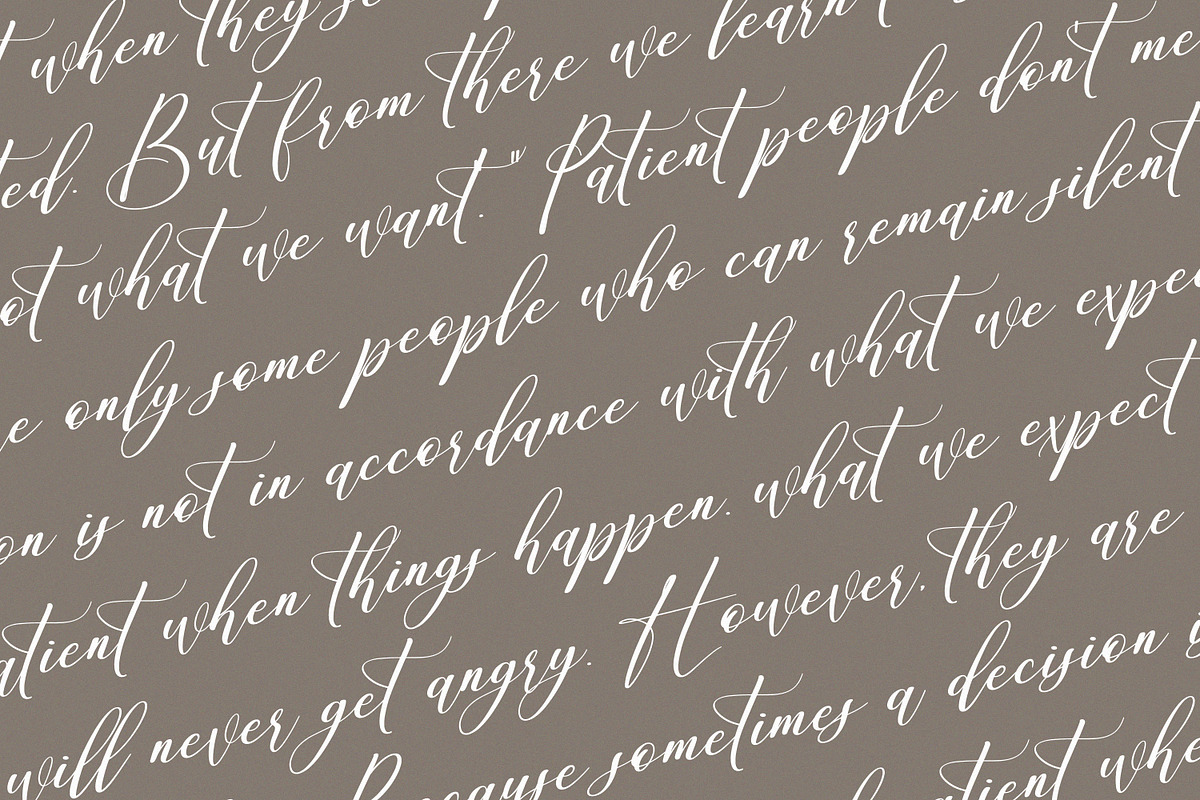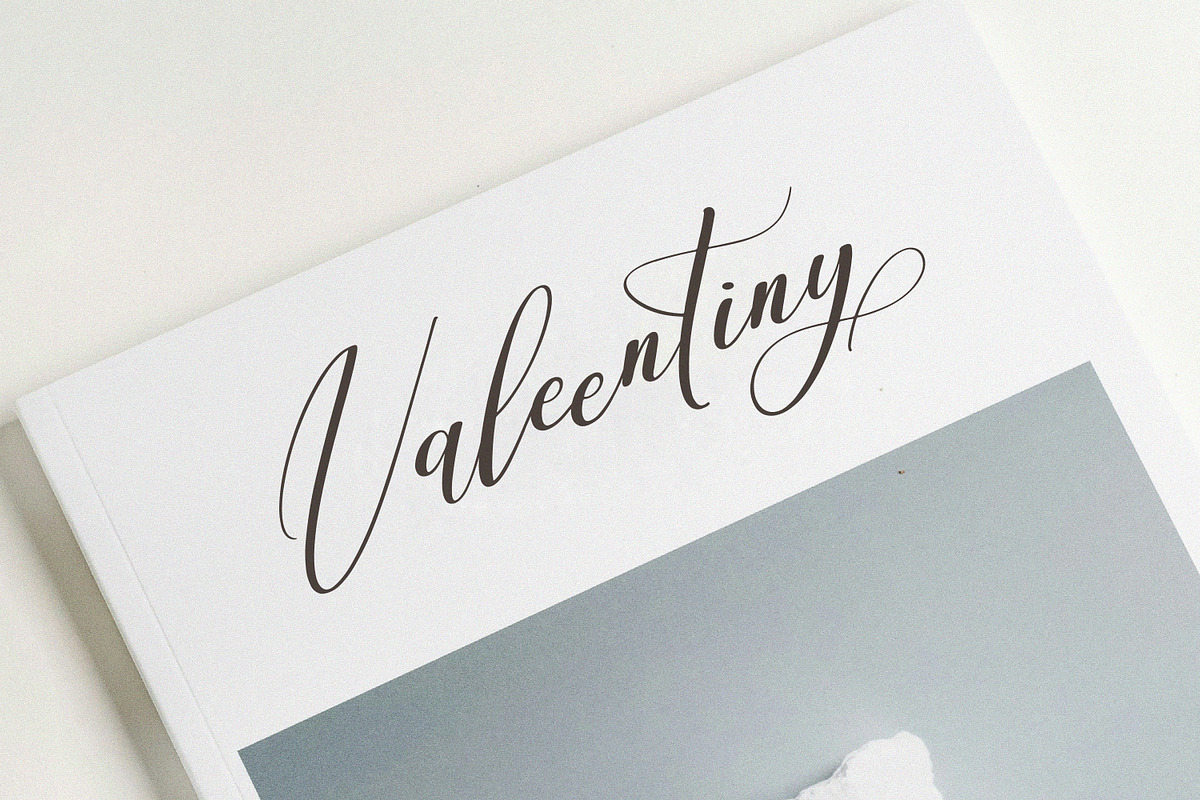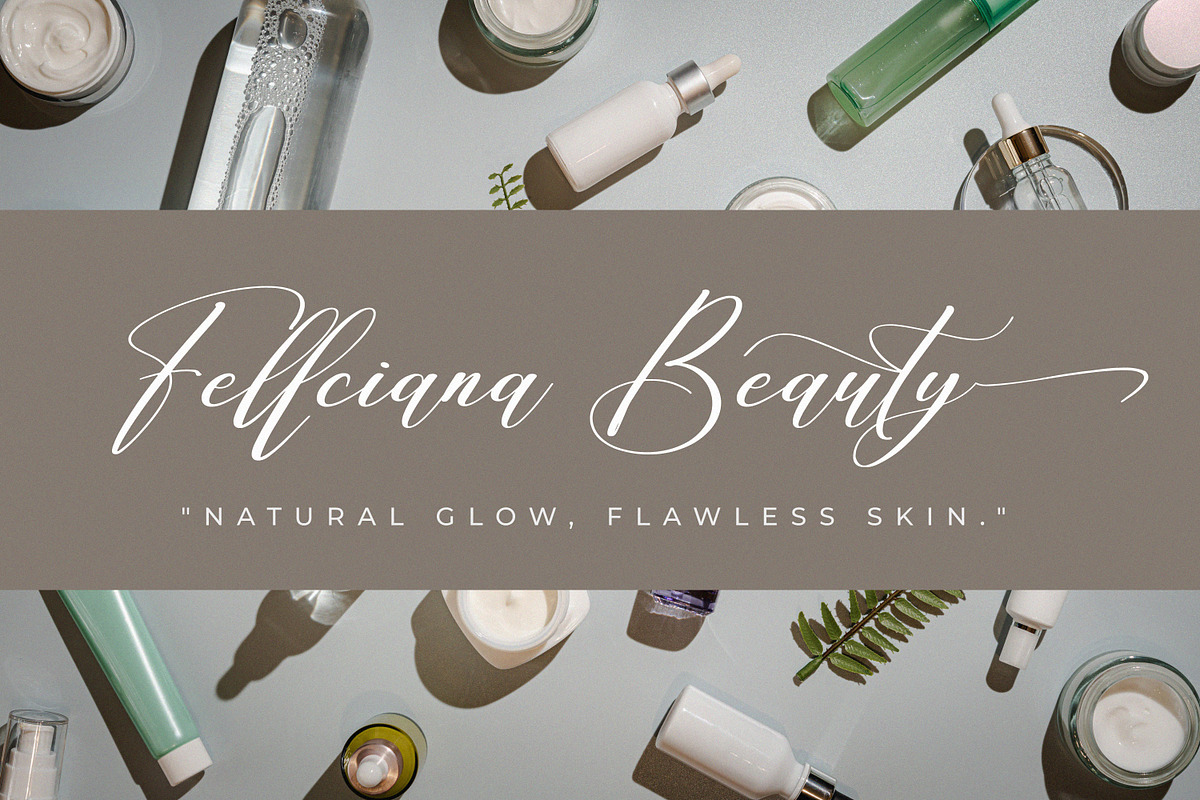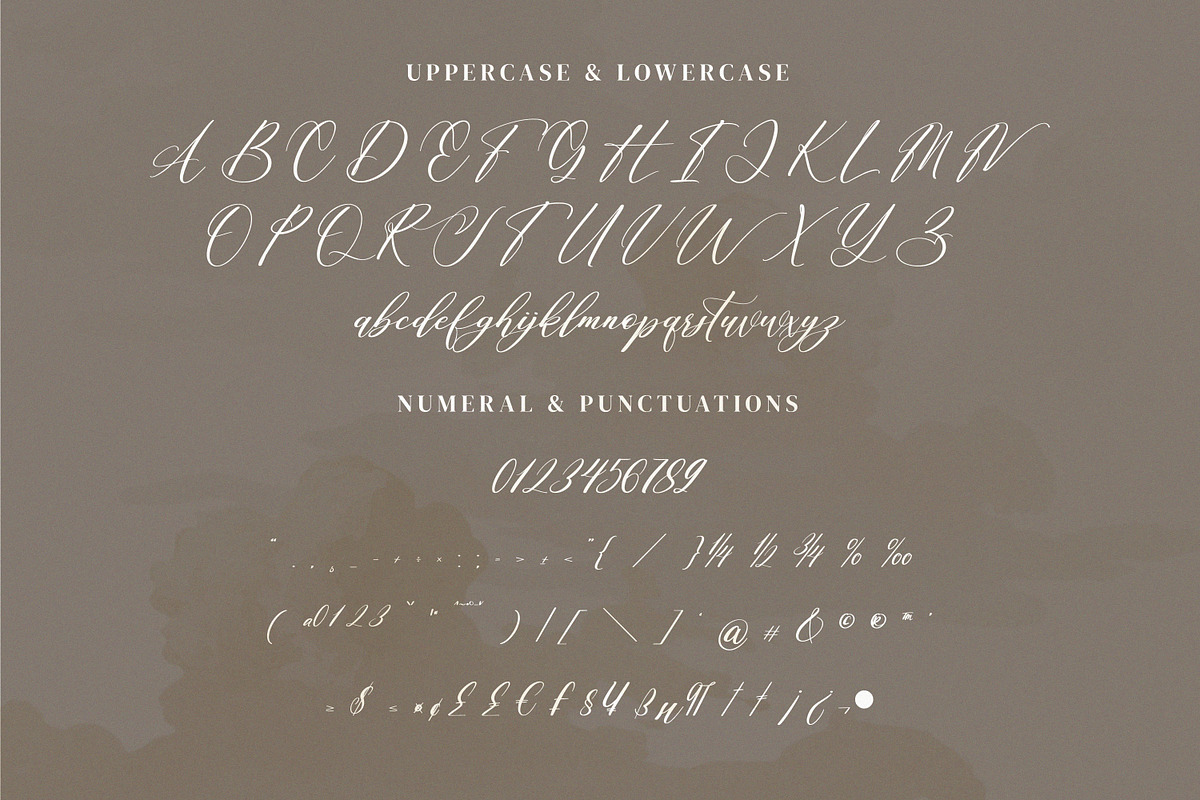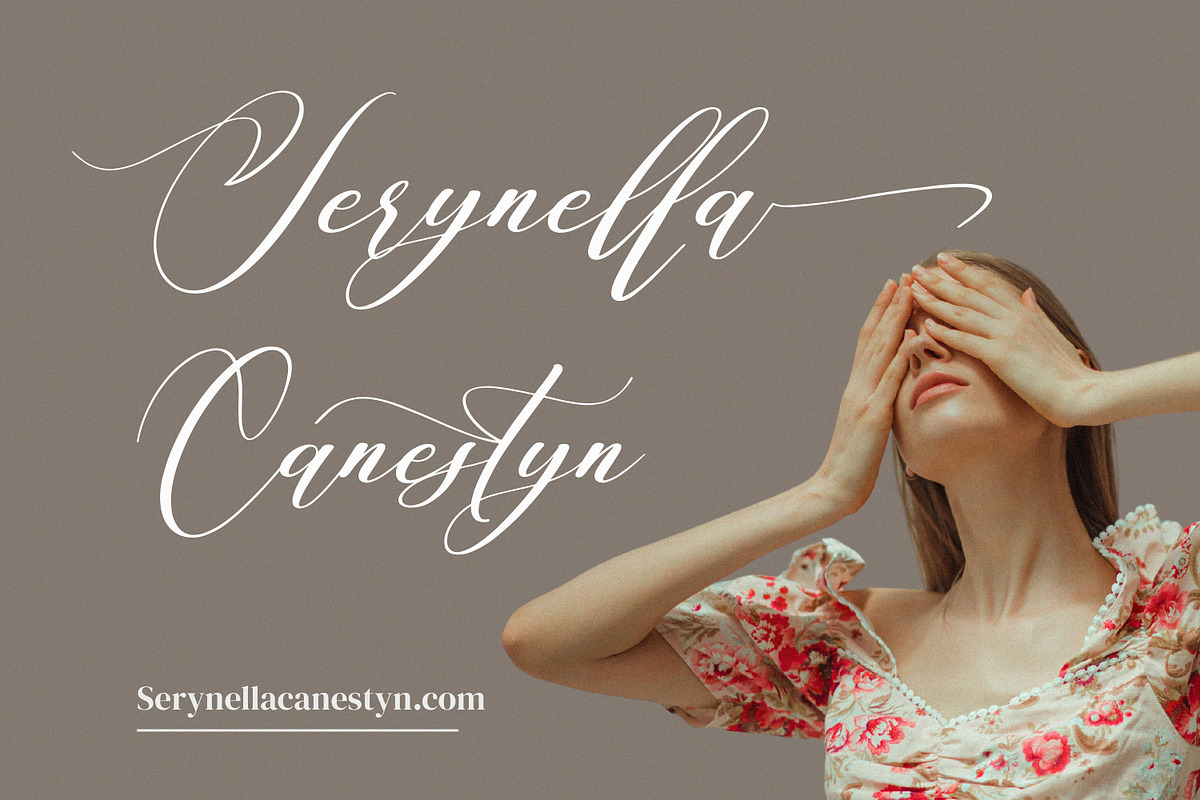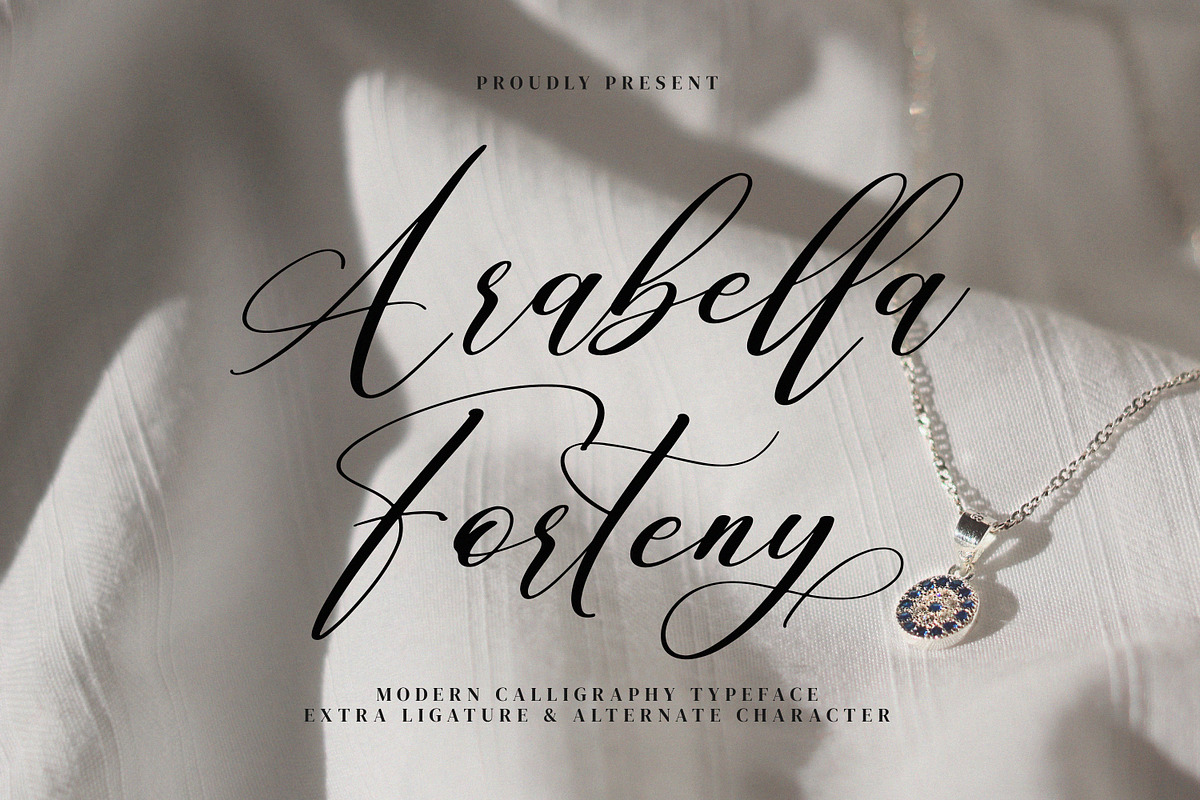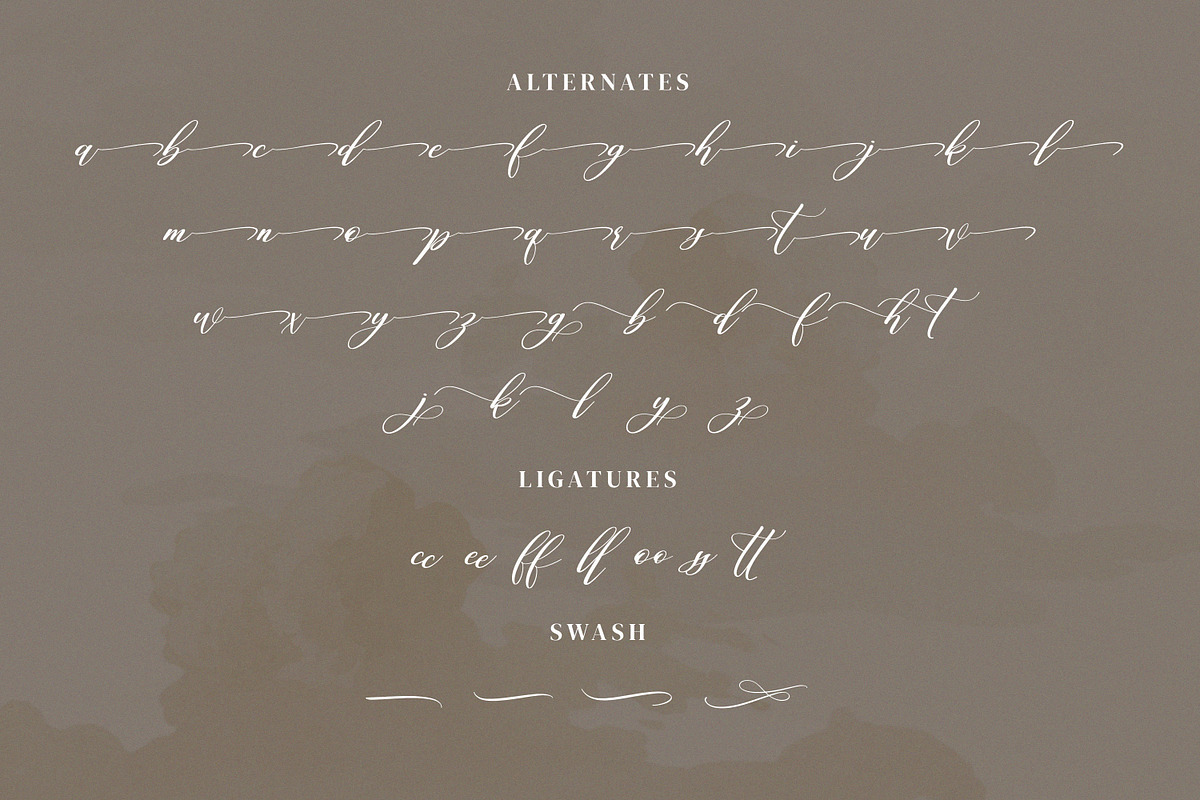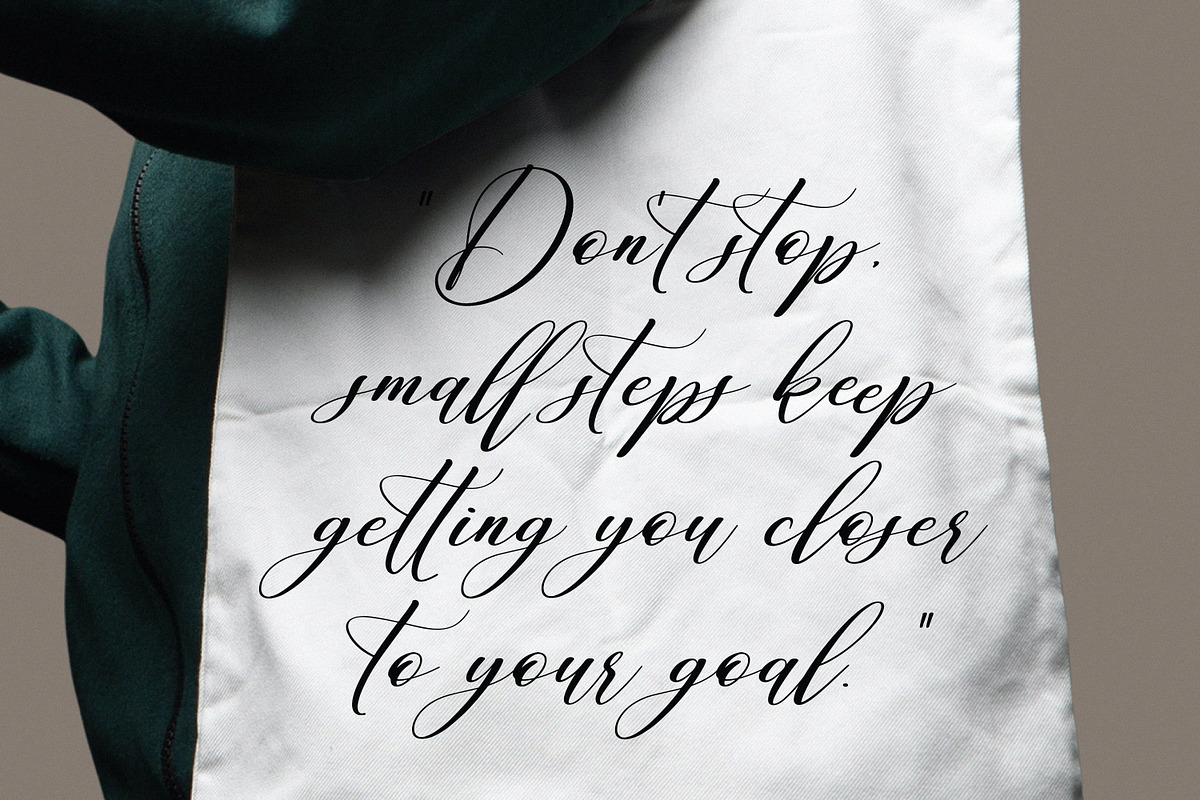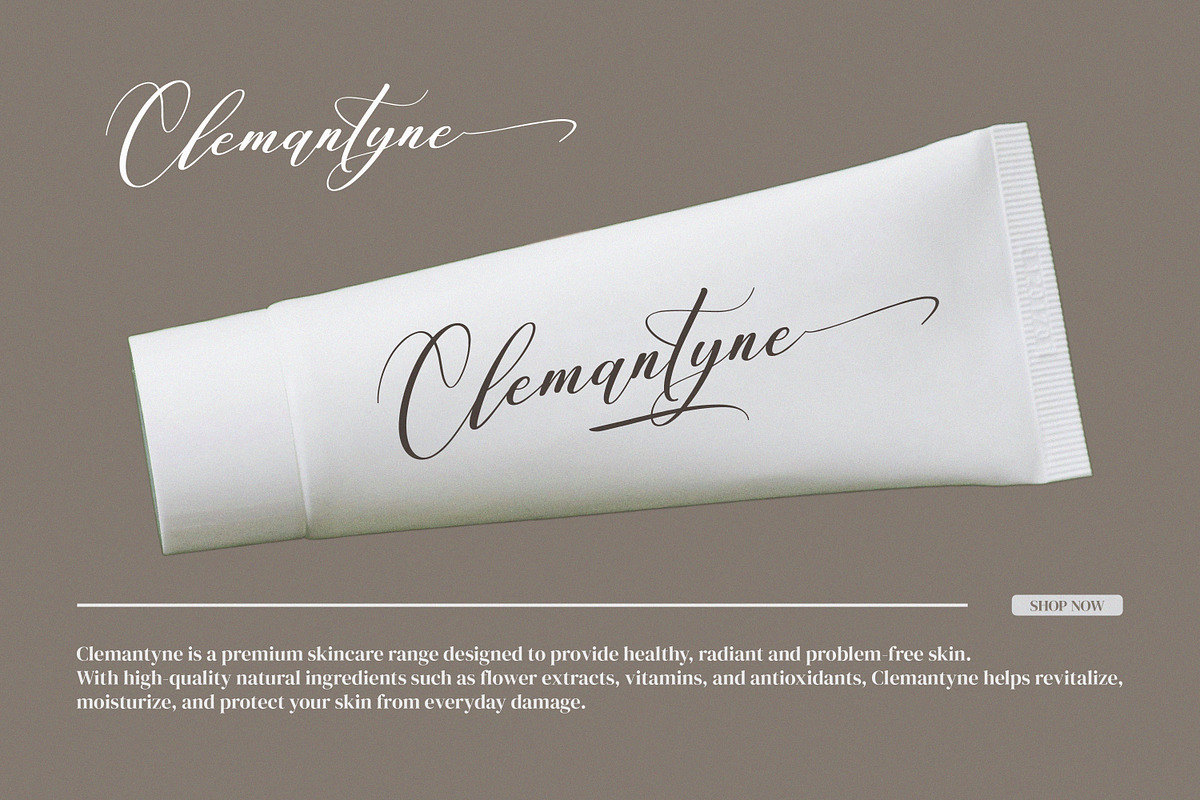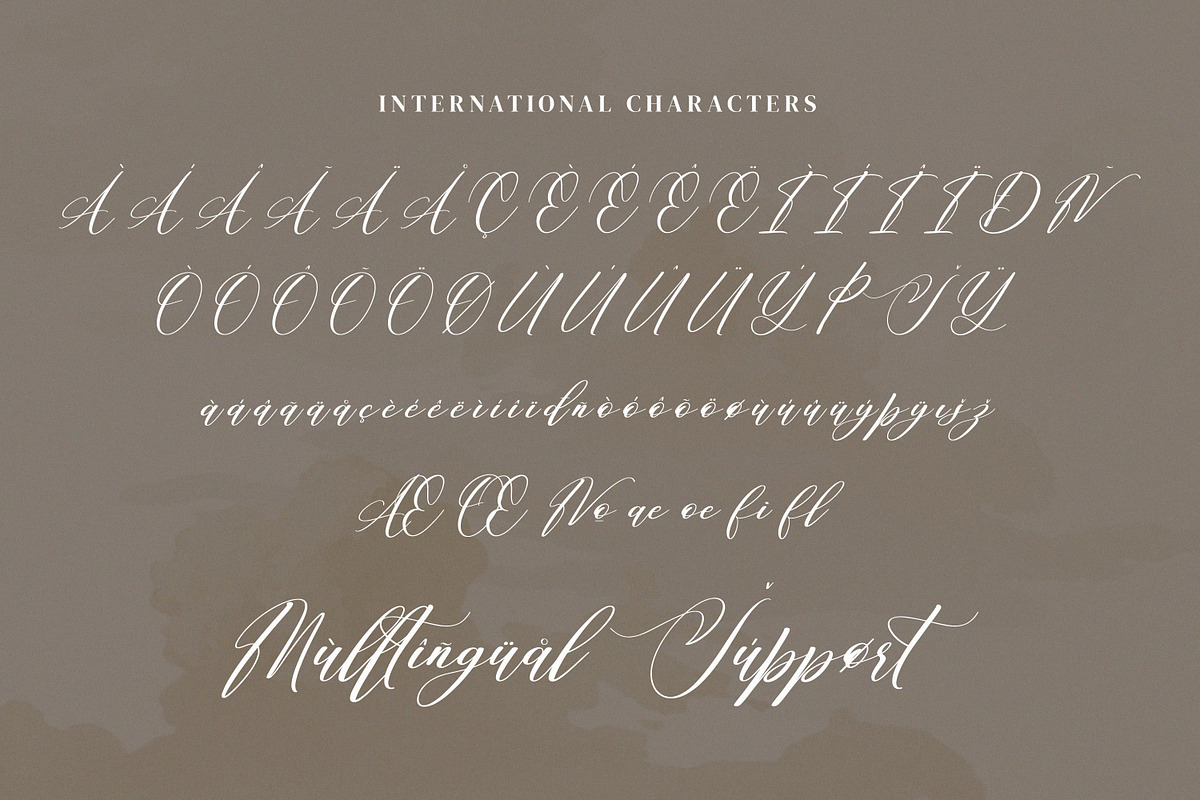
Arabella Forteny
Arabella Forteny – Modern Calligraphy Typeface Font, from Goresan Studio, suitable for any projects such as: logos, branding projects, homeware designs, product packaging, mugs, quotes, posters, shopping bags, t-shirts, book covers, name card, invitation cards, greeting cards, label, photography, watermark, special events, and all your other lovely projects that need a beautiful script taste.
- Alternate, Ligature and Swash
- Fonts include multilingual support.